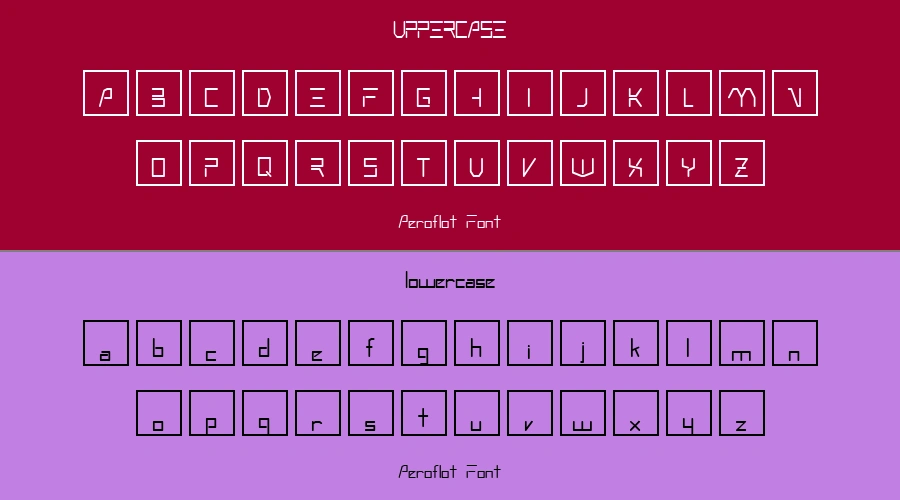
About Aeroflot Font
Aeroflot Font stands out for its distinctive combination of clean corners and artistic impact. Ideal for historical publications, it provides the adaptability and cultural significance that professional projects demand. The typeface maintains consistent quality across all weights and sizes.
Key features include refined rounded apexes and practical connecting forms, enhancing typographic expression. In display applications applications, Aeroflot Font demonstrates exceptional rendering. The descender depth and cultural resonance contribute to its distinctive character and professional appeal.